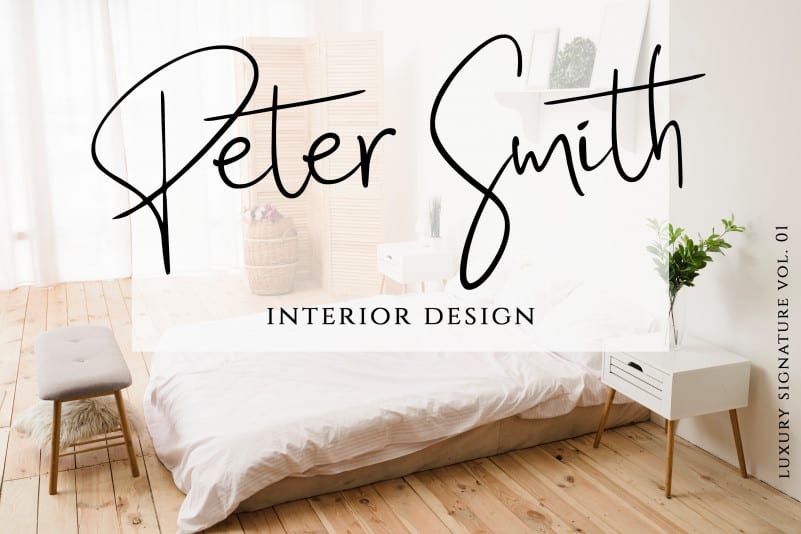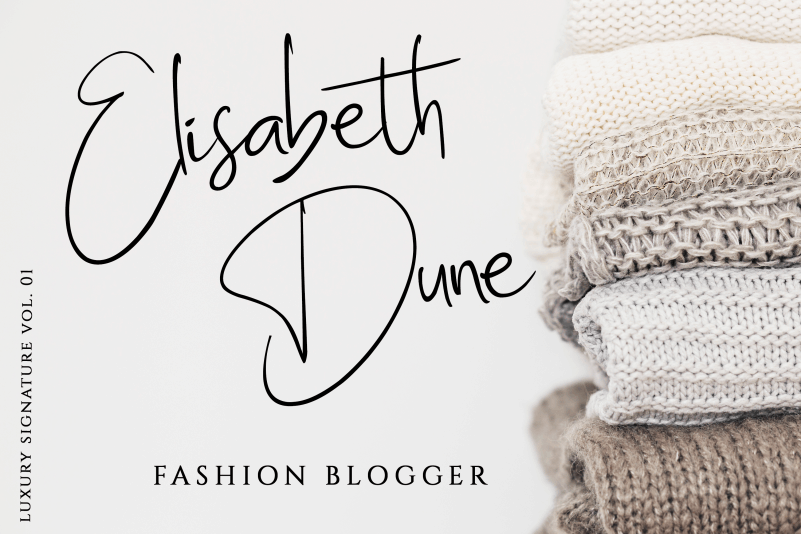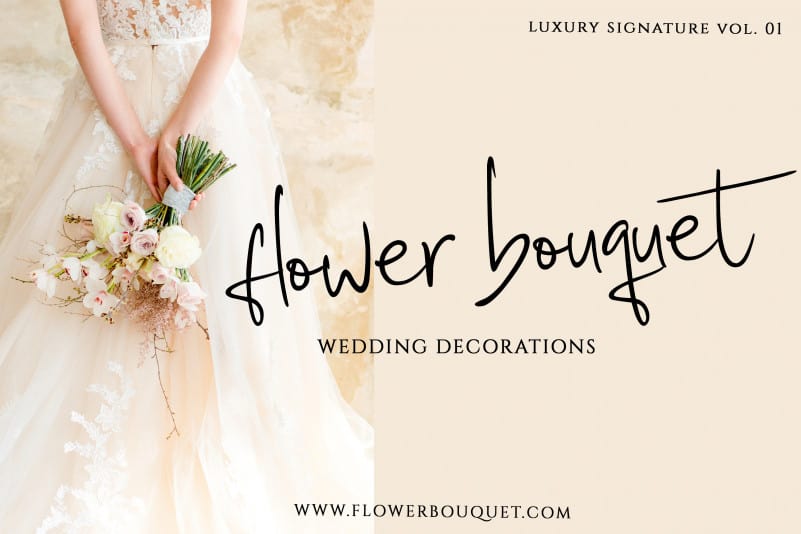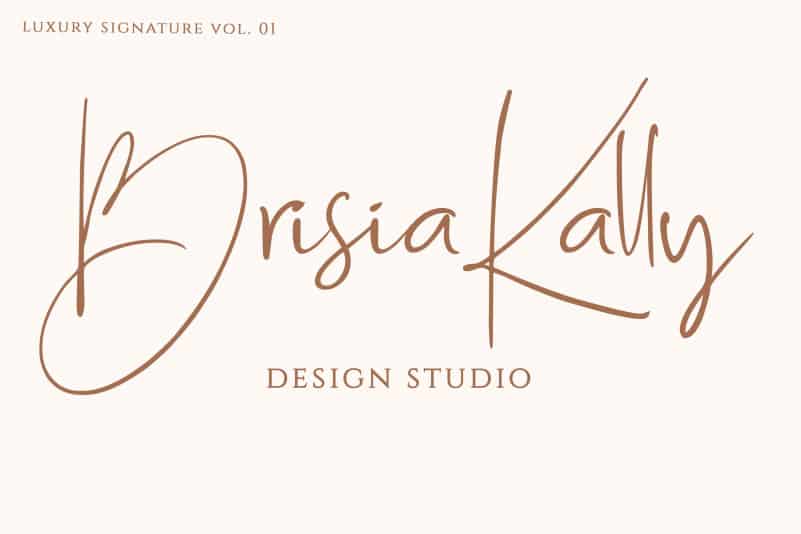
Billie Ashley Handwritten Font
Billie Ashley Handwritten Font is stylish calligraphy font. We made this font with manual handwritting. Billie Ashley is modern script handwritten style. Billie Ashley perfect for branding, signatures, wedding invites and cards, and anymore projects.
Billie Ashley Handwritten Font includes all glyphs uppercase , lowercase, numeral, punctuation, mulitingual and ligatures.